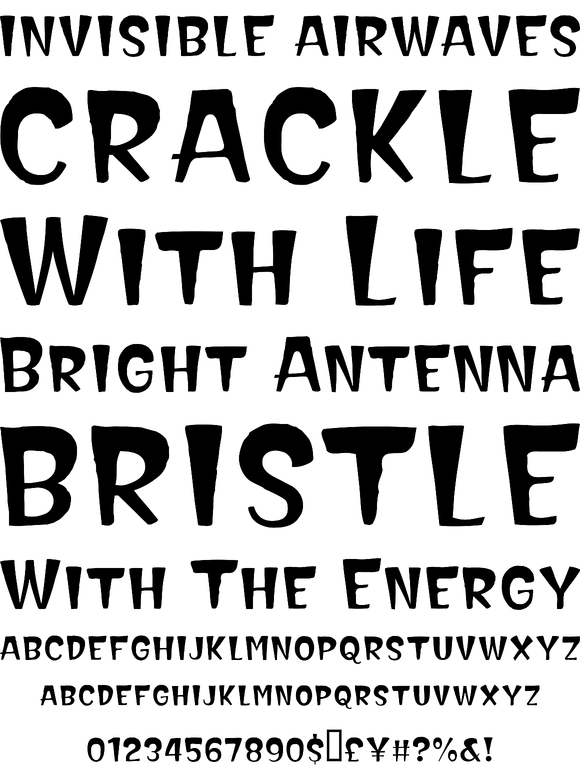
Hammerhead
Foundry: TypeArt
Based on a typestyle found on an old hand-painted circus poster.
DYNAMIC MAGIC
For a more bouncy, and less static look try setting the text in the Hammerhead™ Edge or Hammerhead™ BoldEdge fonts.
ALTERNATE CHARACTERS
There is an alternate "Y" in the "Y-dieresis" character slot.
FULL CHARACTER SET
Each font in the Hammerhead™ family has a full character set of 232+ letterforms, with all characters designed in the style of the font.